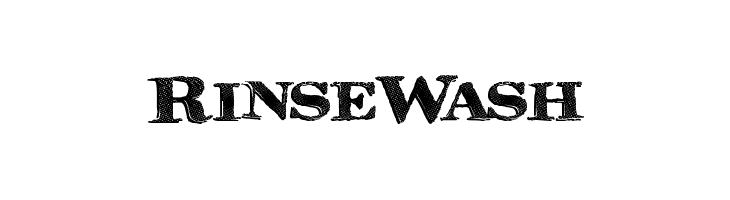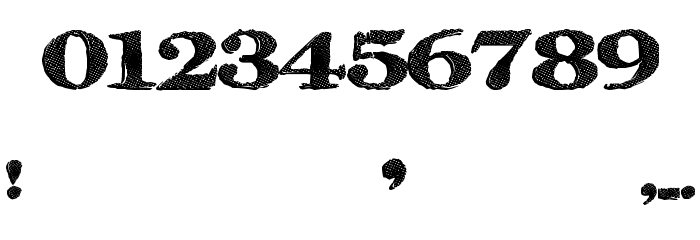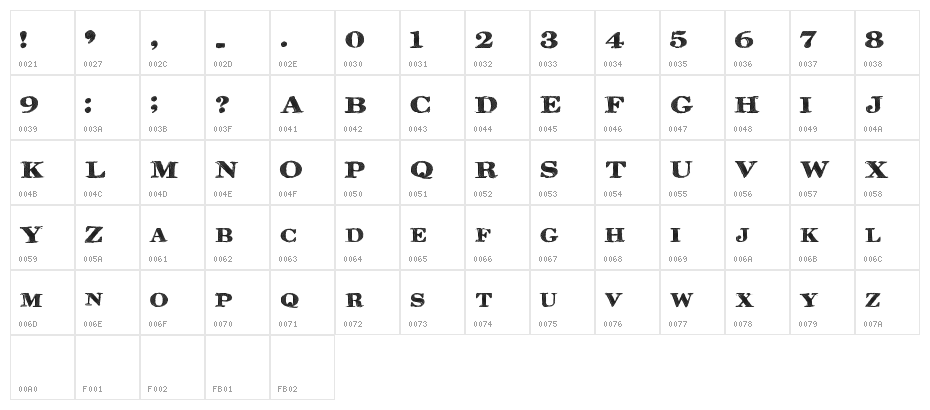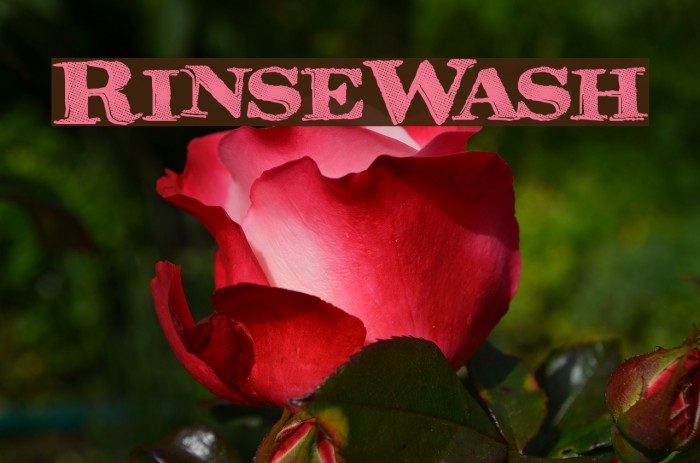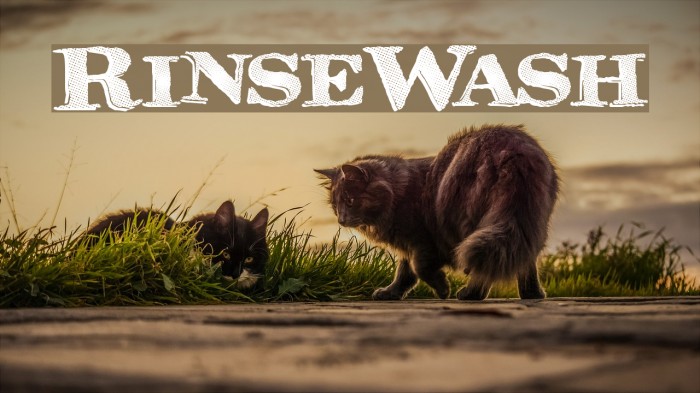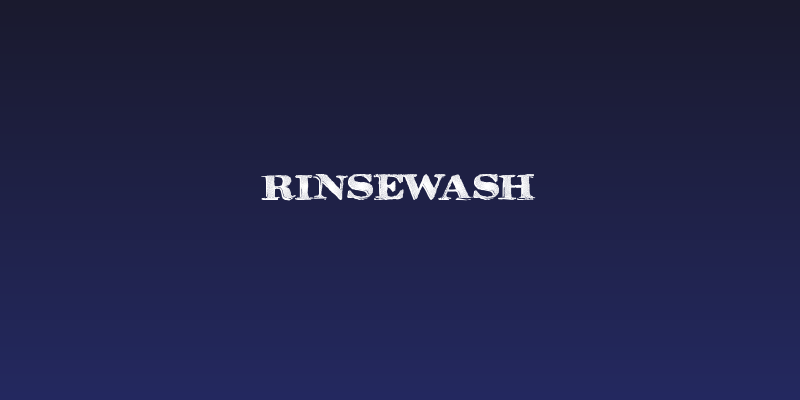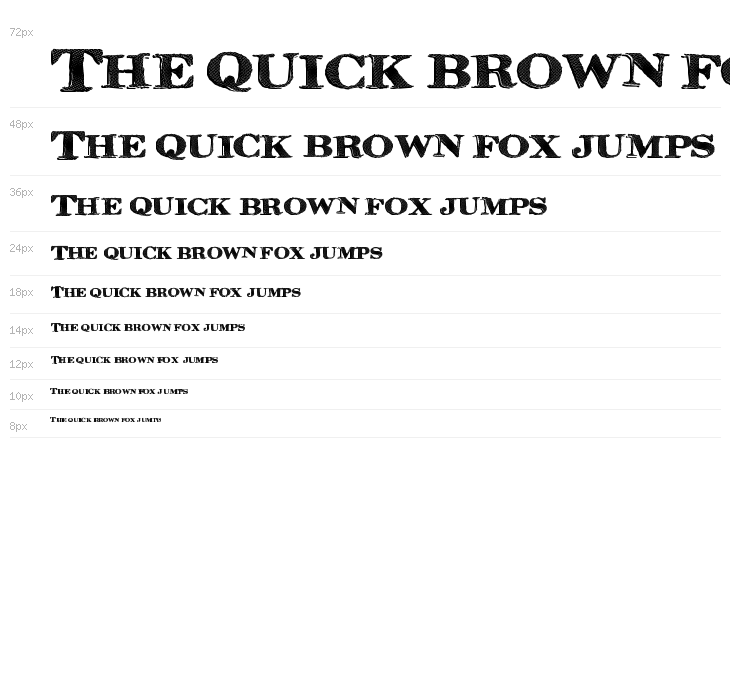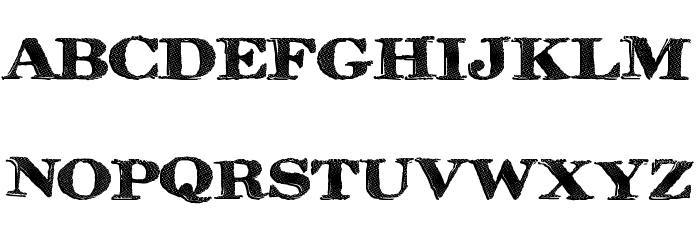
RinseWash Font
RinseWash Description
This font features a bold and textured appearance, reminiscent of vintage printing techniques. Each character is filled with a stippled pattern, giving it a unique, distressed look. The letters are uppercase and maintain a consistent height, with strong serifs that add to the classic feel. The numbers and special characters follow the same design, ensuring uniformity across all glyphs. This font is ideal for projects that require a touch of nostalgia or a handcrafted aesthetic.
| Proposed Projects | Perfect for vintage posters, retro branding, book covers, and any design needing a classic, textured look. |